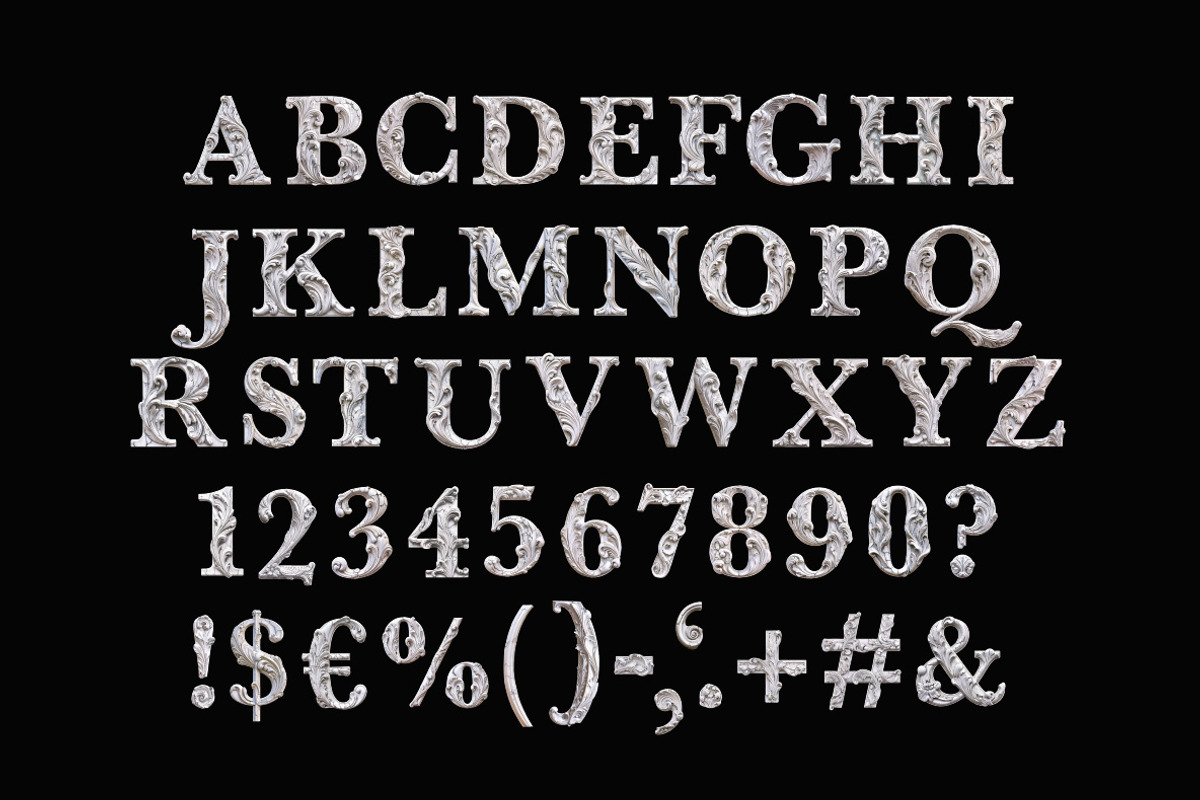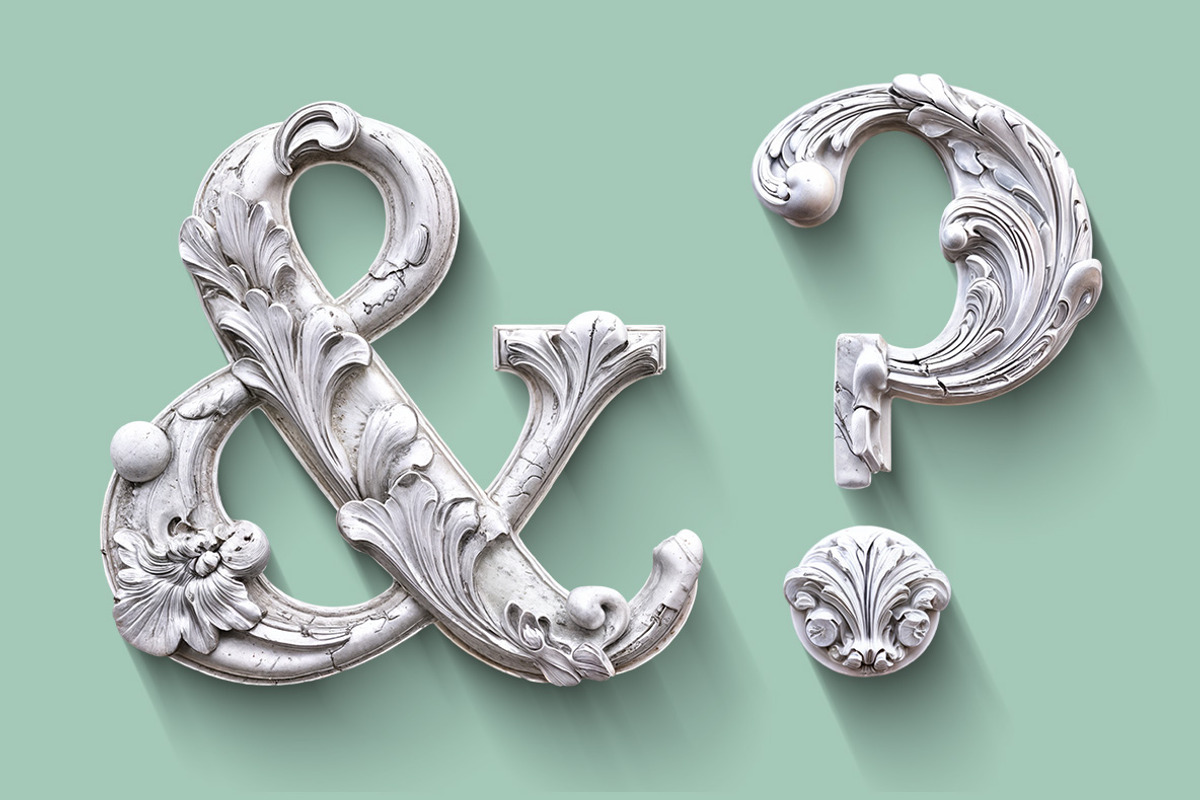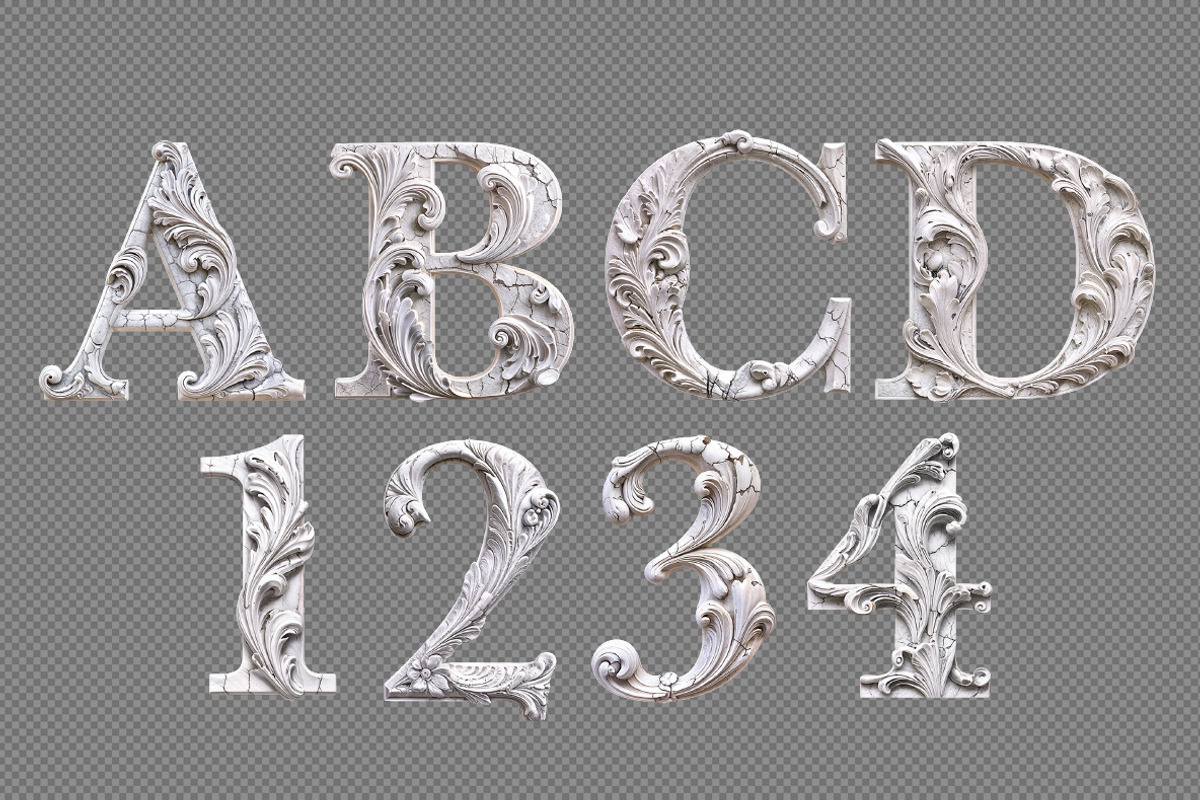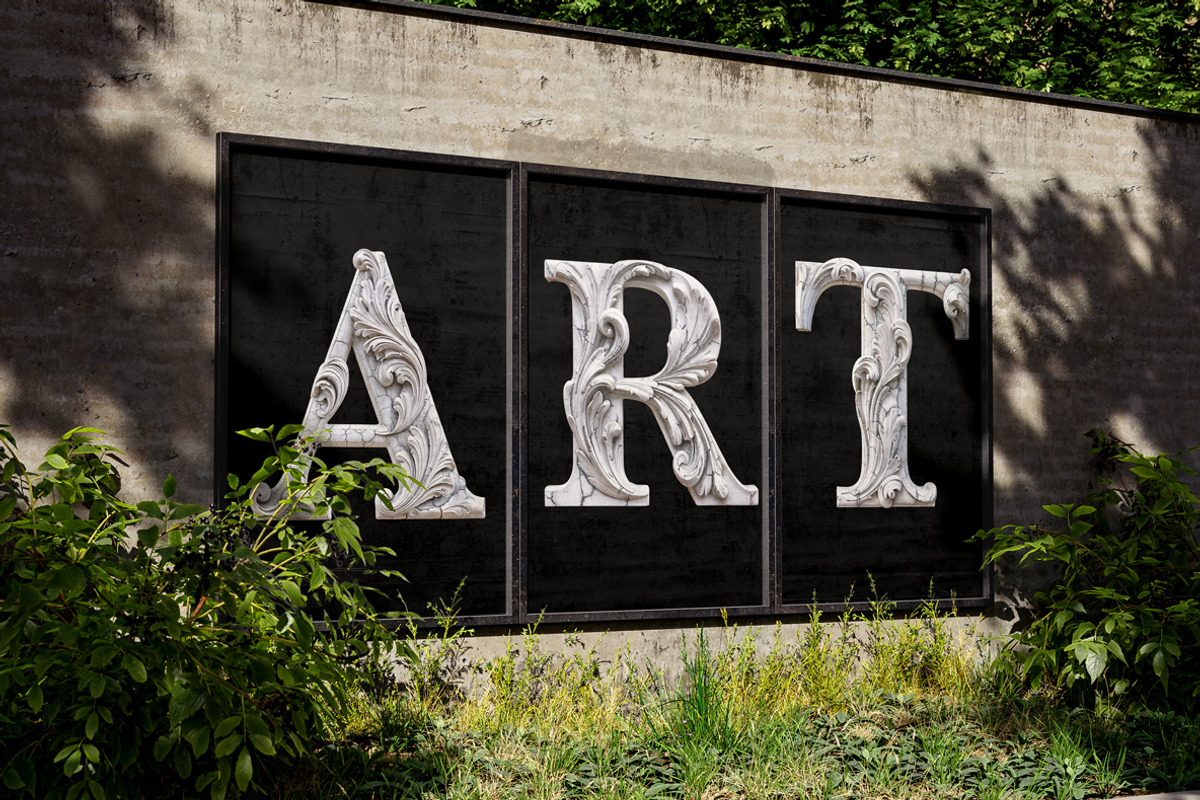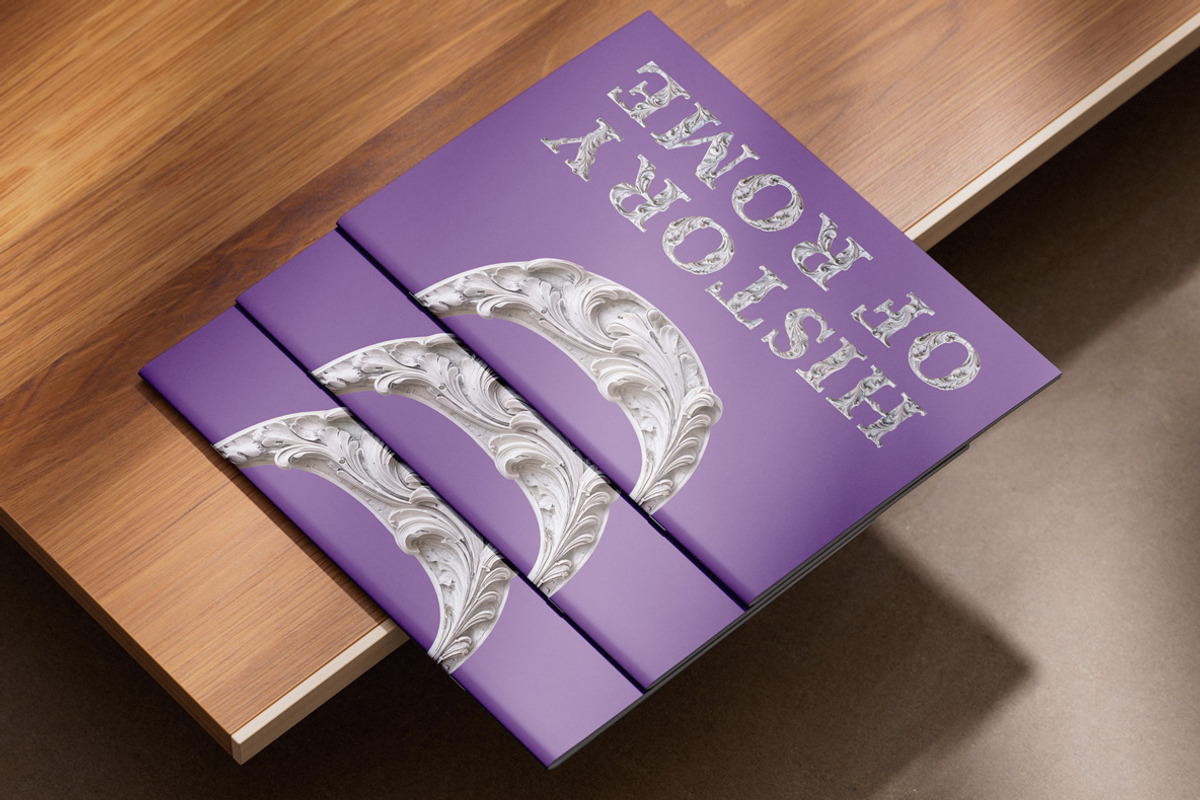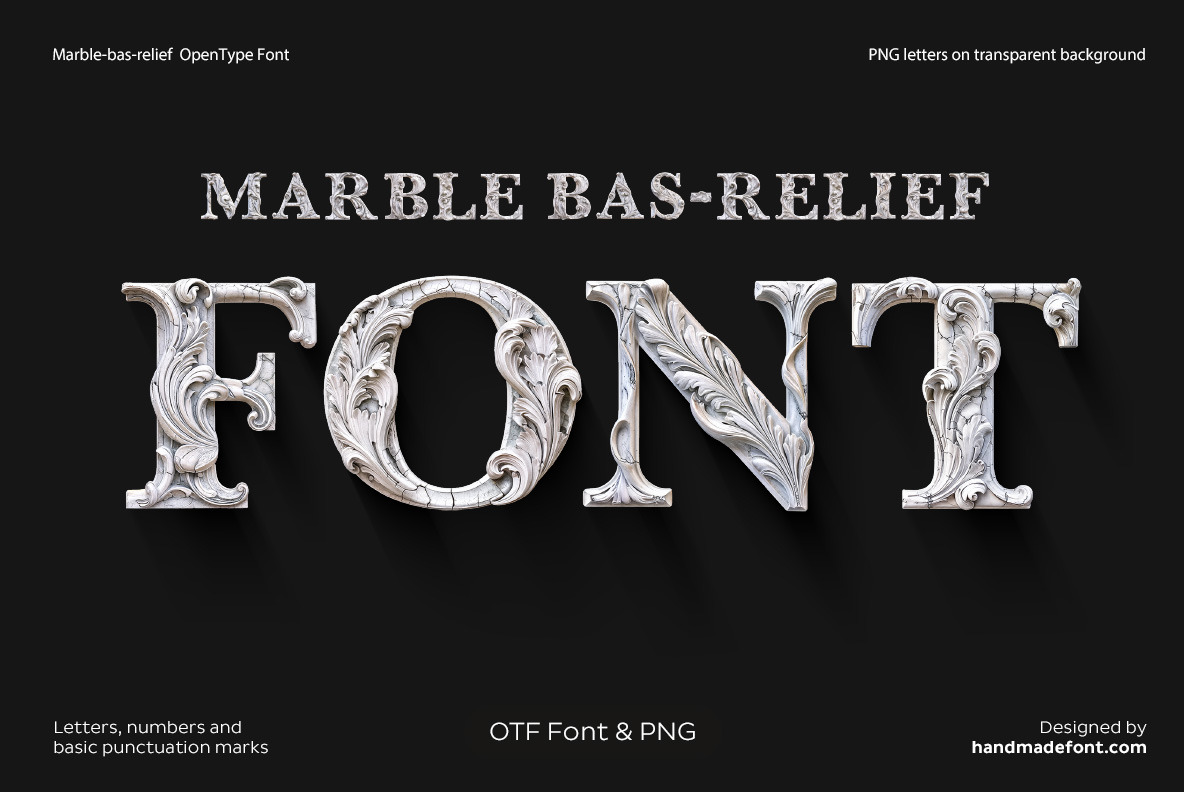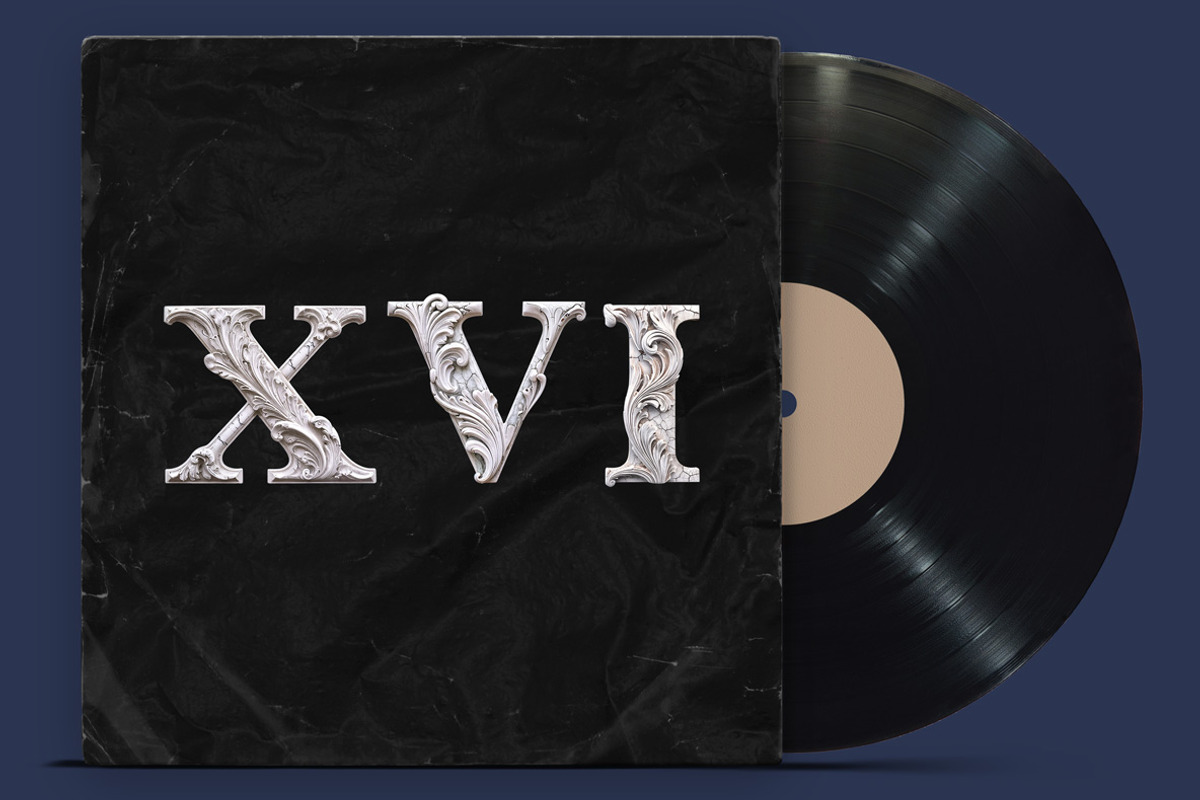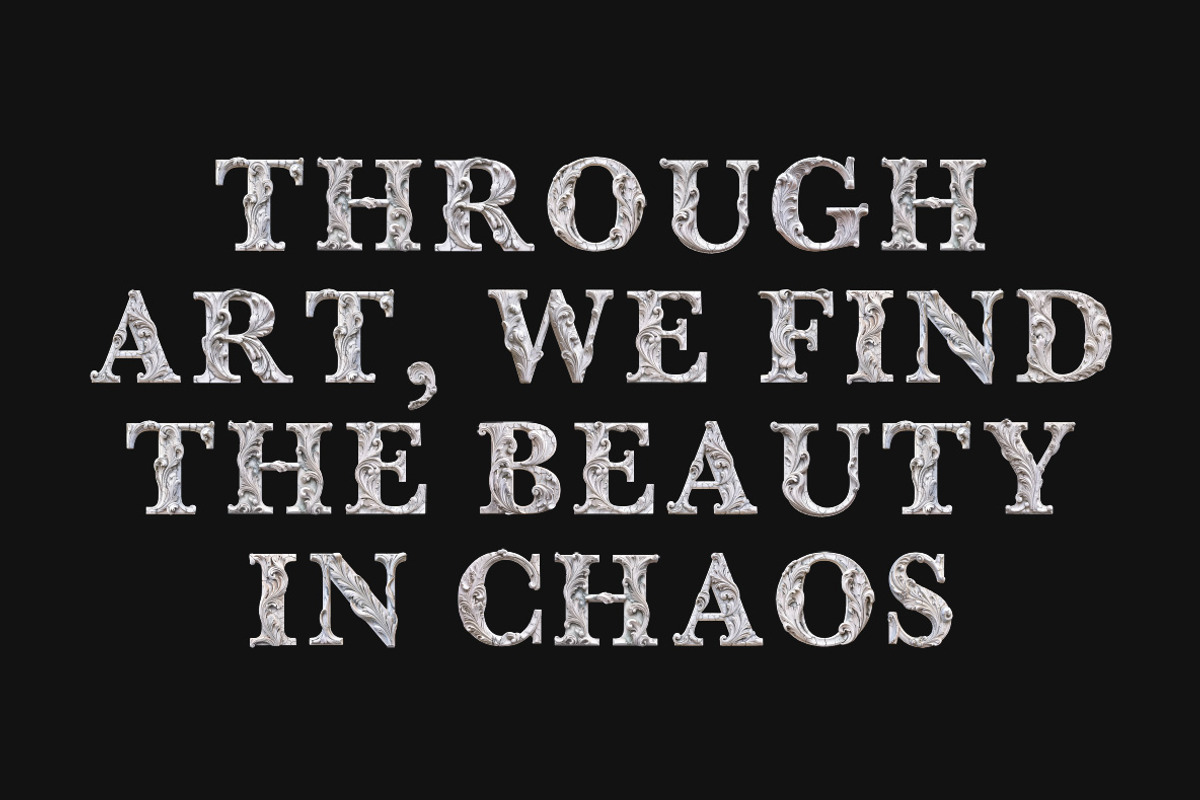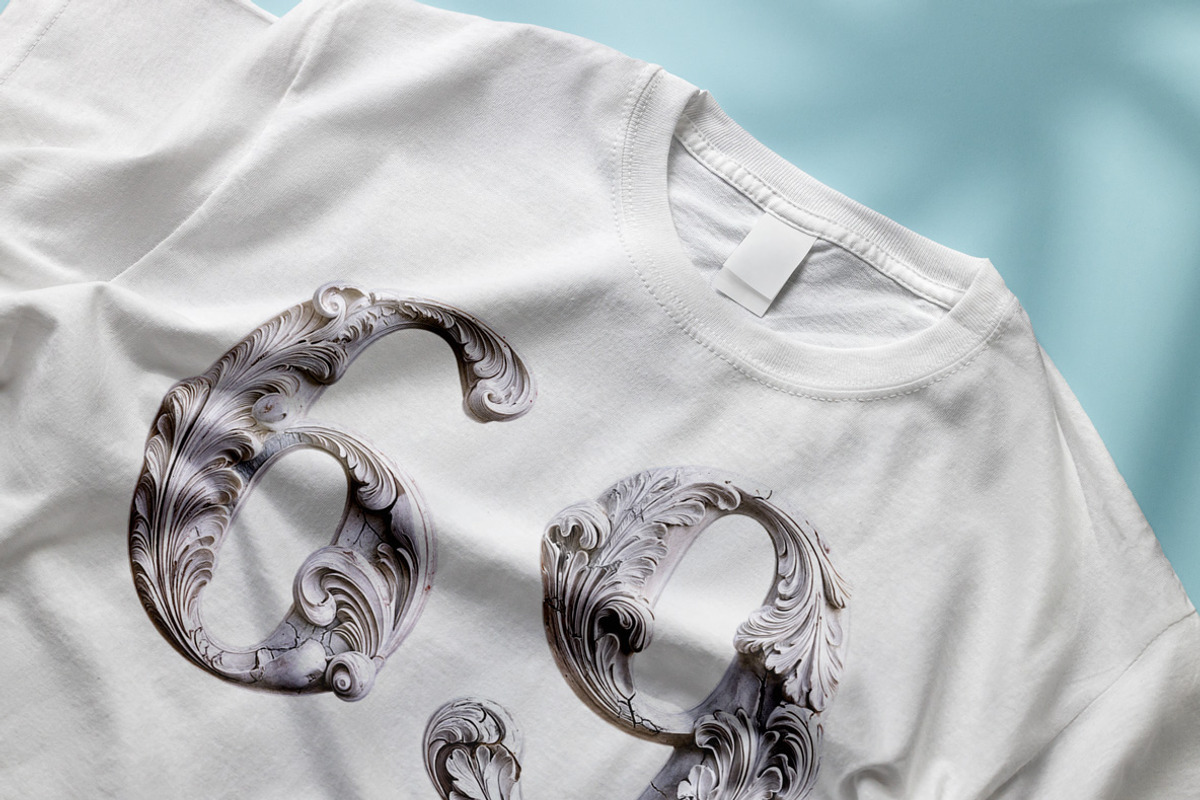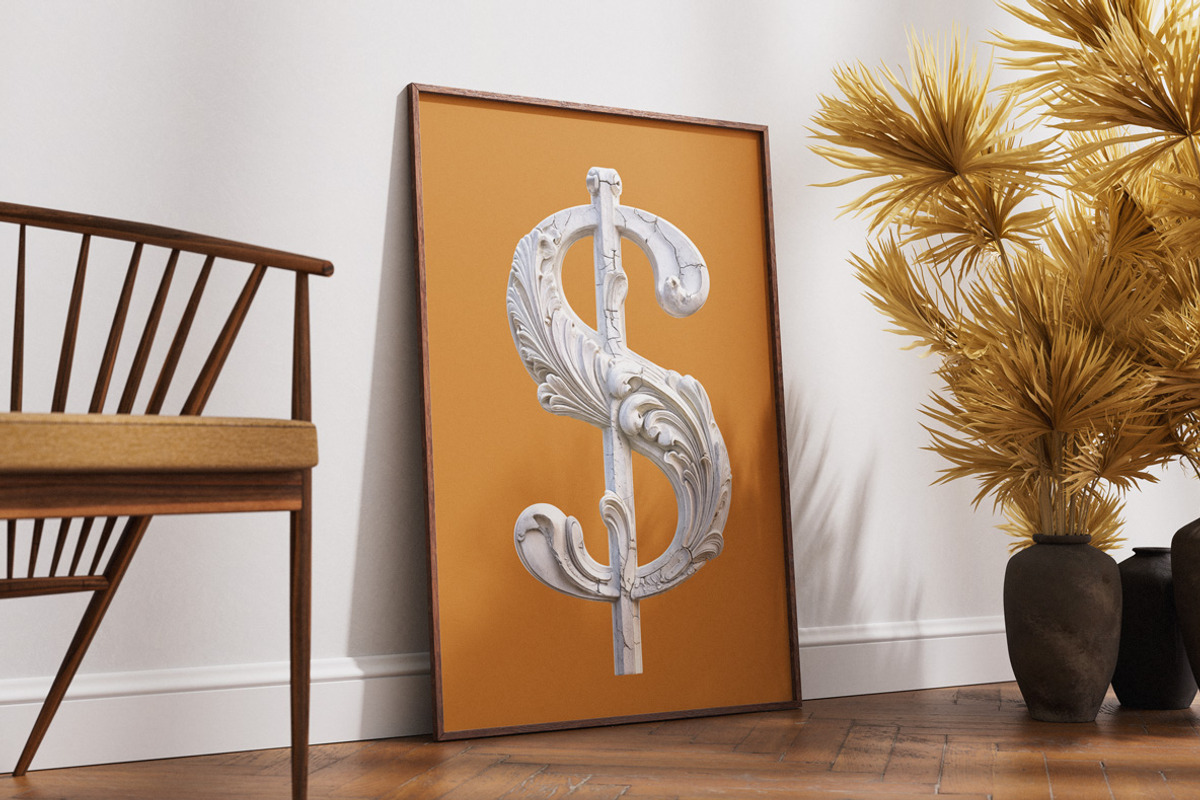
Marble bas-relief Font
Floral elegance meets timeless design in the Marble Bas-Relief Font, a masterpiece of bas-relief typography. Each letter is crafted in a stunning marble style, adorned with intricate bas-relief floral and scroll patterns that exude sophistication. This bas-relief alphabet captures the essence of classical artistry, evoking the grandeur of Greek and Roman architectural ornamentation. The delicate details, combined with the textured marble surface and subtle aged cracks, create a sense of antique refinement. Perfect for projects seeking a blend of tradition and luxury, this bas-relief-inspired font transforms typography into art. Whether for logos, headlines, or decorative design, the Marble Bas-Relief Font delivers an exquisite touch that stands out with its unique blend of elegance and historical charm.
A high definition OpenType Font. Contains uppercase characters, numerals and basic punctuation. (Draw height roughly 800 pixels). All letters and glyphs that comprises this font you can see on the preview.